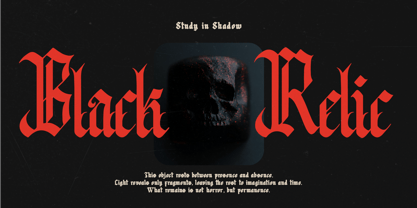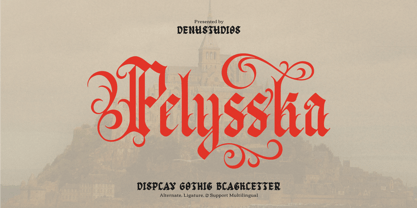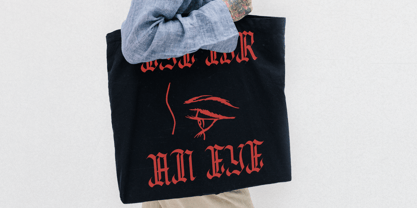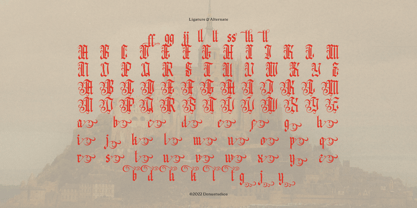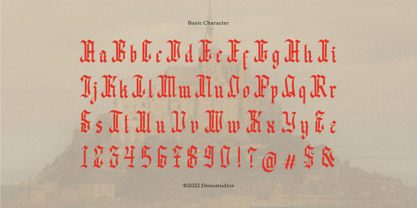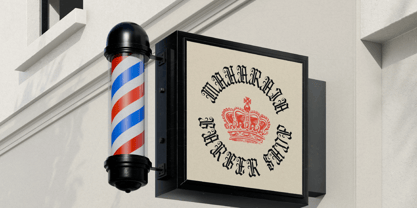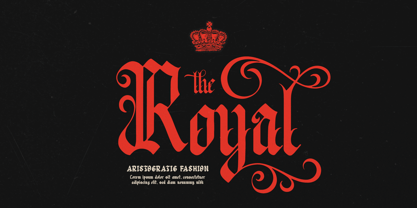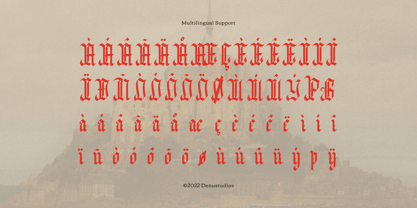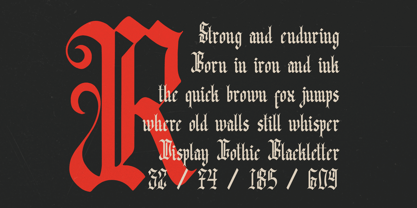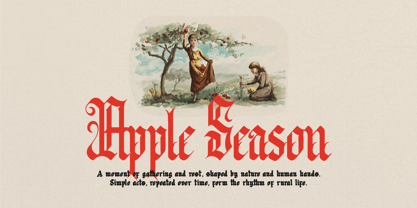
Pelysska
von Denustudio
Die Schriftfamilie Pelysska wurde von Dede Nugraha entworfen und von Denustudio veröffentlicht. Pelysska enthält 1 Stile. Mehr über diese Familie
Pelysska | Display Gothic Blackletter, from Denustudios, suitable for any projects such as: logos, branding projects, homeware designs, product packaging, mugs, quotes, posters, shopping bags, t-shirts, book covers, name card, invitation cards, greeting cards, label, photography, watermark, special events, and all your other lovely projects that need Blackletter a taste.
Designer: Dede Nugraha
Foundry: Denustudio